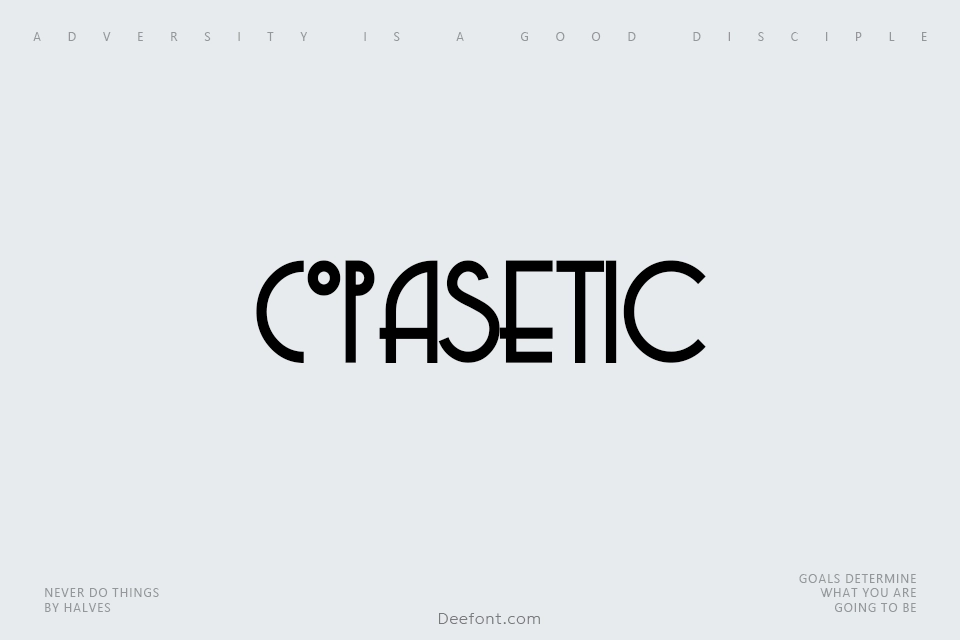
Copasetic Font
Copasetic is a retro-inspired display font that captures the essence of Art Deco design with its bold, geometric letterforms and vintage aesthetic. Created by renowned type designer Nick Curtis, this distinctive typeface features uppercase letters with sharp, elegant characters perfect for eye-catching headlines, branding projects, and creative typography. With its timeless retro charm and modern appeal, Copasetic brings nostalgic flair to logos, posters, packaging, and digital designs, making it an ideal choice for projects that demand distinctive personality and vintage vibrancy.